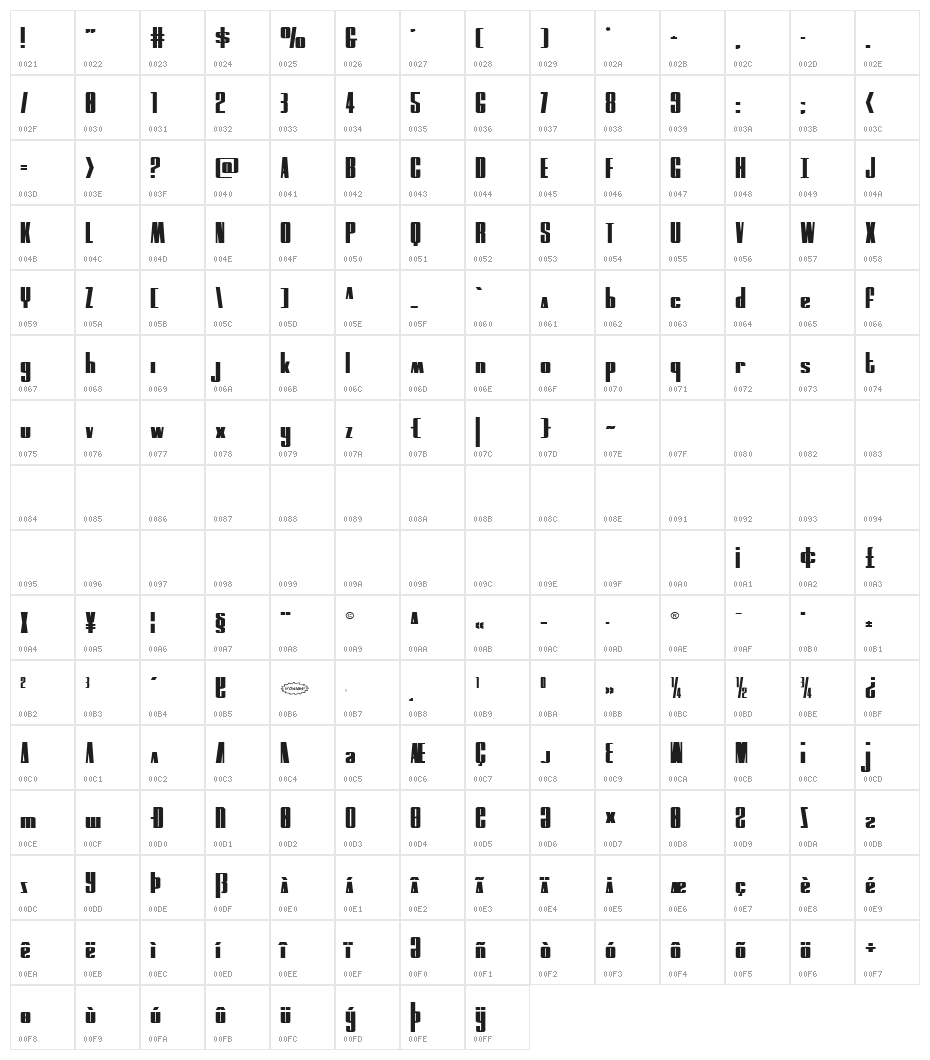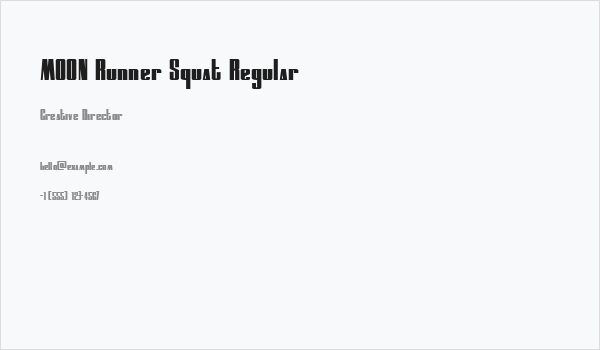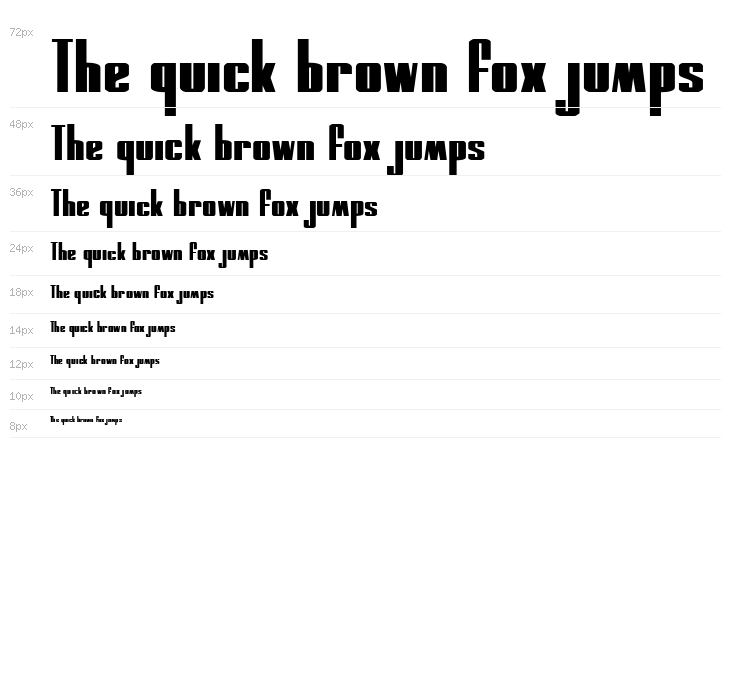
MOON Runner Squat Regular Font
MOON Runner Squat Regular Description
This font features a bold, condensed style with a strong, impactful presence. The characters are tall and narrow, giving a sense of height and power. The uppercase letters are particularly striking, with sharp angles and a uniform thickness that conveys a modern, industrial feel. The lowercase letters maintain the same boldness, with a slightly more playful touch in their curves. Numbers and special characters follow the same design principles, ensuring consistency across all elements. The overall appearance is both dynamic and robust, making it suitable for attention-grabbing headlines and designs.